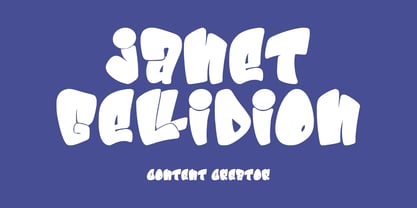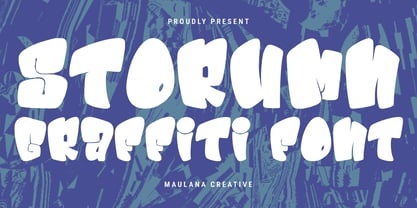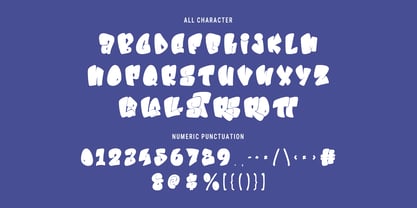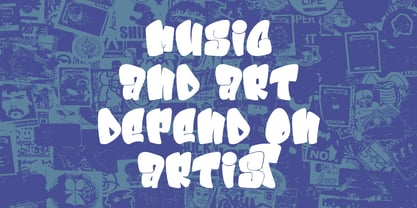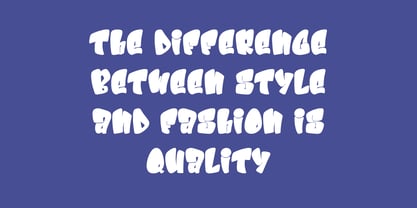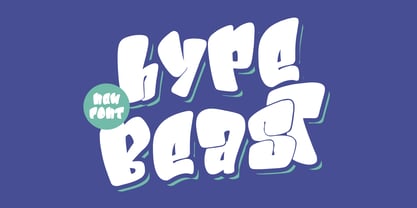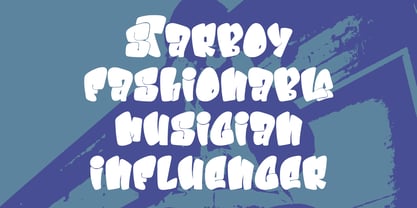
MC Storumn
by Maulana Creative
The MC Storumn Font Family was designed by Gilang Maulana and published by Maulana Creative. MC Storumn contains 1 styles. More about this family
Storumn Graffiti Font is a fancy graffiti style font. With back slanted handmade stroke, fun character with a bit of ligatures. To give you an extra creative work. Storumn font support multilingual more than 100+ language. This font is good for logo design, Social media, Movie Titles, Books Titles, a short text even a long text letter and good for your secondary text font with sans or serif. Make a stunning work with Storumn font.
Designers: Gilang Maulana
Foundry: Maulana Creative